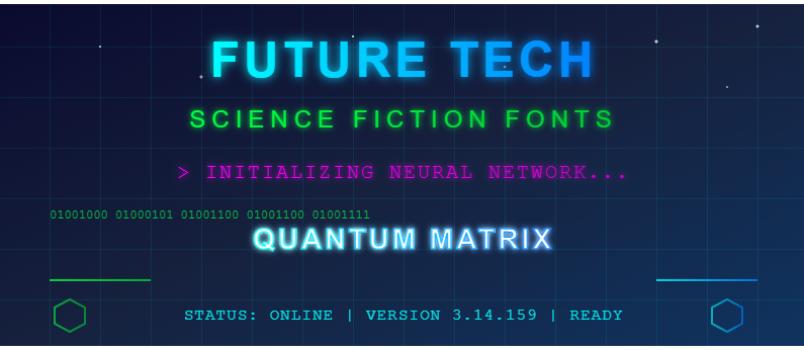
Science fiction fonts has always captured our imagination with its bold visions of the future, and typography plays a crucial role in bringing these otherworldly concepts to life. Whether you’re designing a movie poster for the next blockbuster space opera, creating a book cover for a cyberpunk novel, or developing a user interface for a sci-fi video game, the right typeface can transport your audience to distant galaxies and alternate realities.
The world of free science fiction fonts offers an incredible treasure trove of typographic possibilities that won’t break your budget. These fonts capture the essence of technological advancement, alien civilizations, and futuristic aesthetics that define the genre. From sleek, minimalist designs reminiscent of advanced computer interfaces to bold, angular letterforms that evoke dystopian landscapes, there’s a sci-fi font for every creative vision.
Essential Categories of Sci-Fi Fonts
When exploring free science fiction fonts, you’ll encounter several distinct categories, each serving different narrative and aesthetic purposes. Tech-inspired fonts feature clean, digital aesthetics perfect for representing advanced computer systems or artificial intelligence. These often include fonts with pixelated elements, circuit board patterns, or the characteristic glow of LED displays.
Military and industrial sci-fi fonts draw from utilitarian design principles, featuring bold, stencil-like letterforms that suggest durability and functionality. These work exceptionally well for depicting space marines, military installations, or harsh frontier colonies where practicality trumps elegance.
Alien and exotic fonts push the boundaries of readability while maintaining their communicative function. These typefaces might feature unusual ligatures, unexpected character connections, or letterforms that seem to defy conventional typography rules, perfect for representing non-human languages or advanced civilizations with different aesthetic sensibilities.
Transformers
Orion
Space
Ethnocentric
Neuropol X
Xirod
Gemina
CGF Locust Resistance
N-Gage
Nasalization
Venus Rising
Beyond
Battlestar
Alexis
Clone Wars
Design Considerations and Best Practices
When working with free science fiction fonts, remember that readability should never be completely sacrificed for style. Even the most exotic alien typeface needs to communicate effectively with your audience. Consider using sci-fi fonts primarily for headlines, titles, and short bursts of text, while pairing them with more readable fonts for body text.
Color choices can dramatically enhance the effectiveness of sci-fi typography. Electric blues, neon greens, and stark whites against dark backgrounds can evoke the feeling of advanced technology or alien environments. However, ensure sufficient contrast for accessibility, especially when designing for digital platforms.
Spacing and layout deserve special attention when using futuristic fonts. Many free science fiction fonts work best with generous letter spacing, allowing their unique character shapes to breathe and maintain clarity. Consider the overall composition and how your chosen typeface interacts with other design elements like images, backgrounds, and interface components.